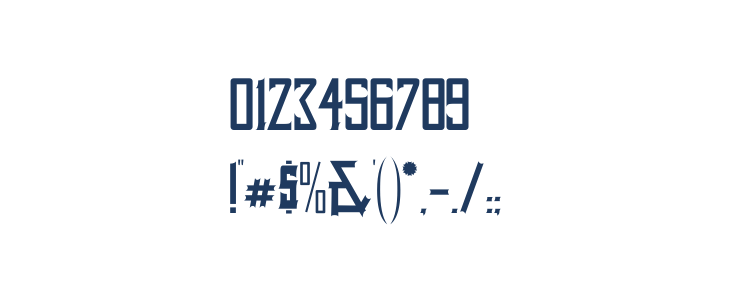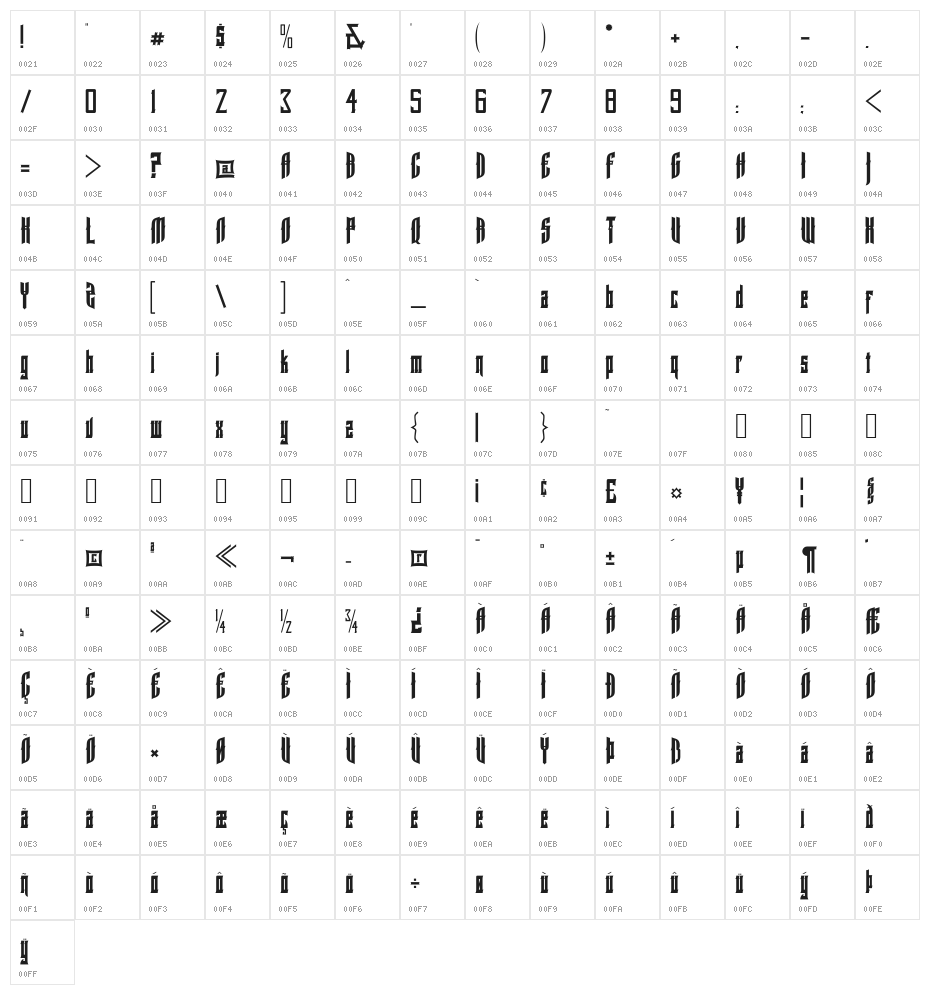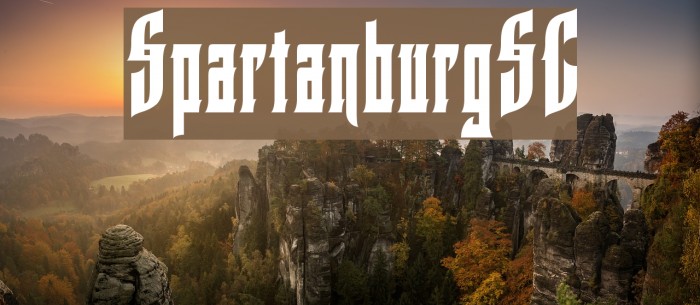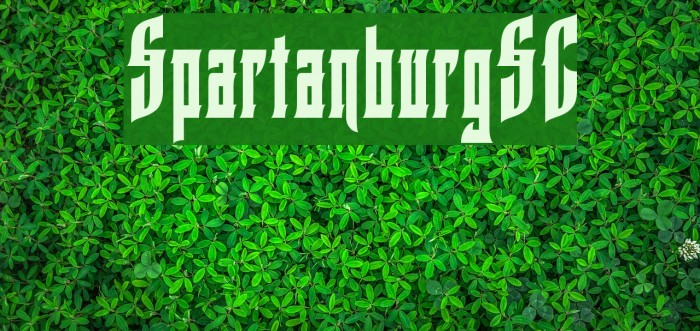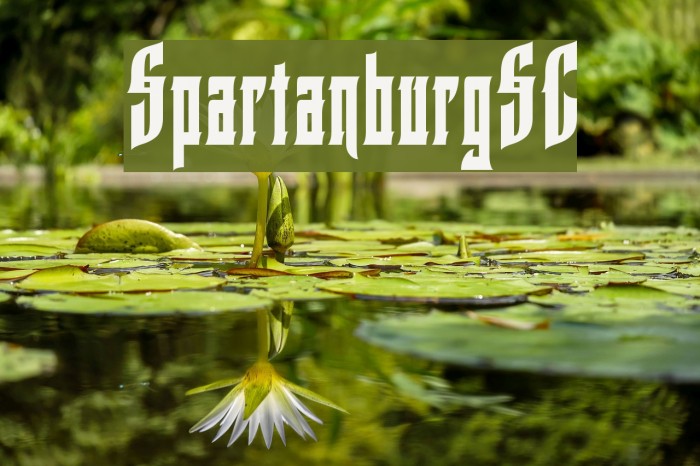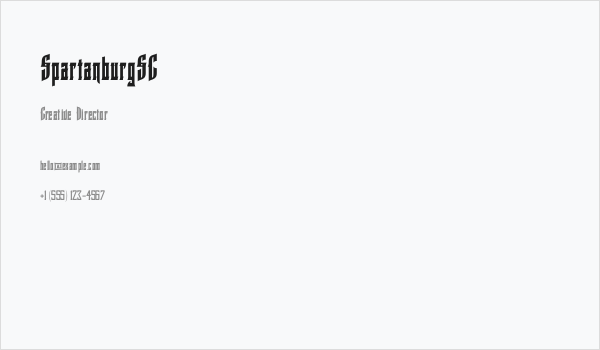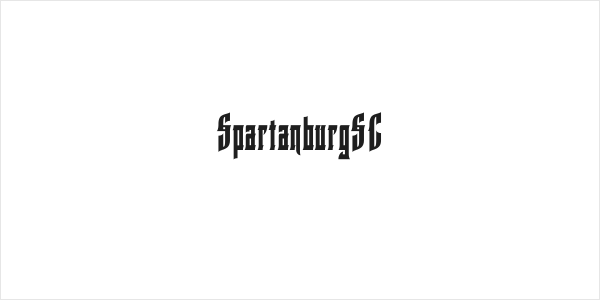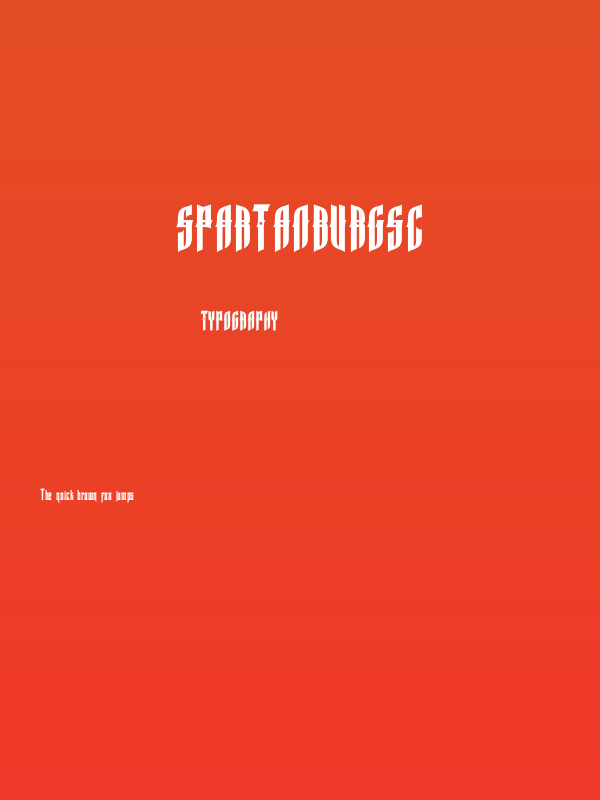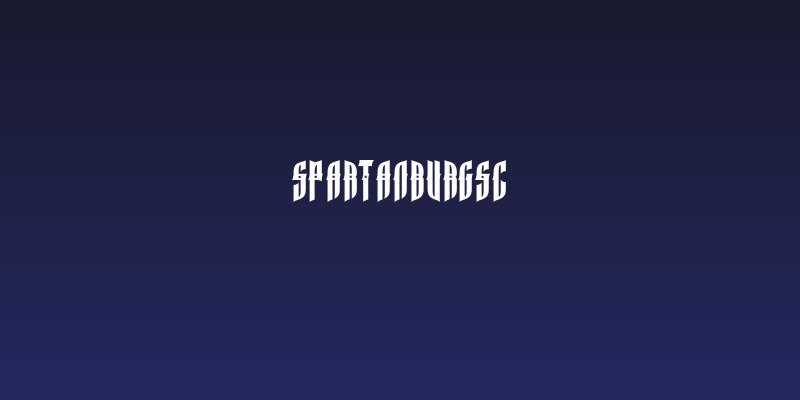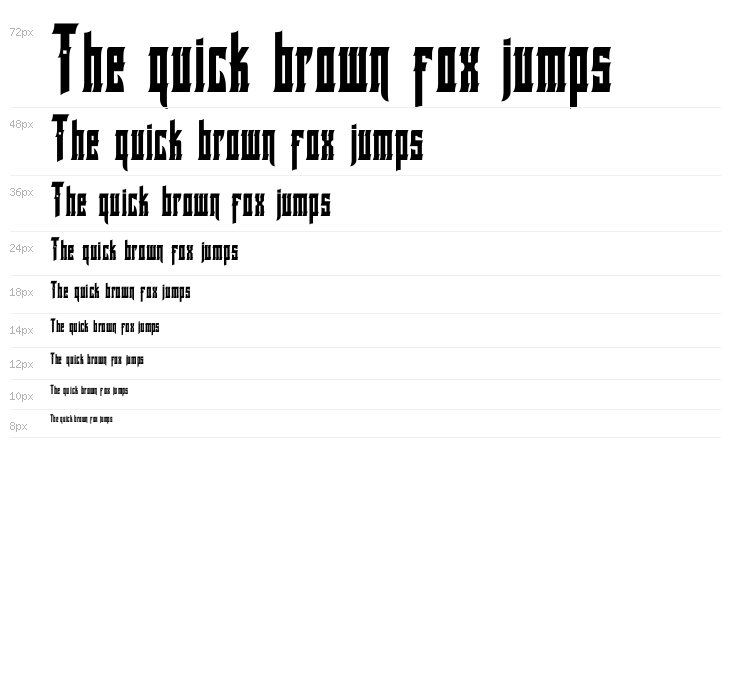
SpartanburgSC Font
SpartanburgSC Description
This font features a bold and striking design with sharp, angular edges and a strong presence. The uppercase letters are tall and imposing, while the lowercase letters maintain a consistent style with slightly reduced height. The numerals are equally bold, ensuring they stand out in any context. Special characters are designed with the same angular aesthetic, providing a cohesive look across all glyphs. The font's overall appearance is reminiscent of gothic or medieval styles, making it ideal for projects that require a dramatic and impactful visual statement.
| Proposed Projects | Ideal for posters, logos, branding, and any design requiring a dramatic, impactful style. |